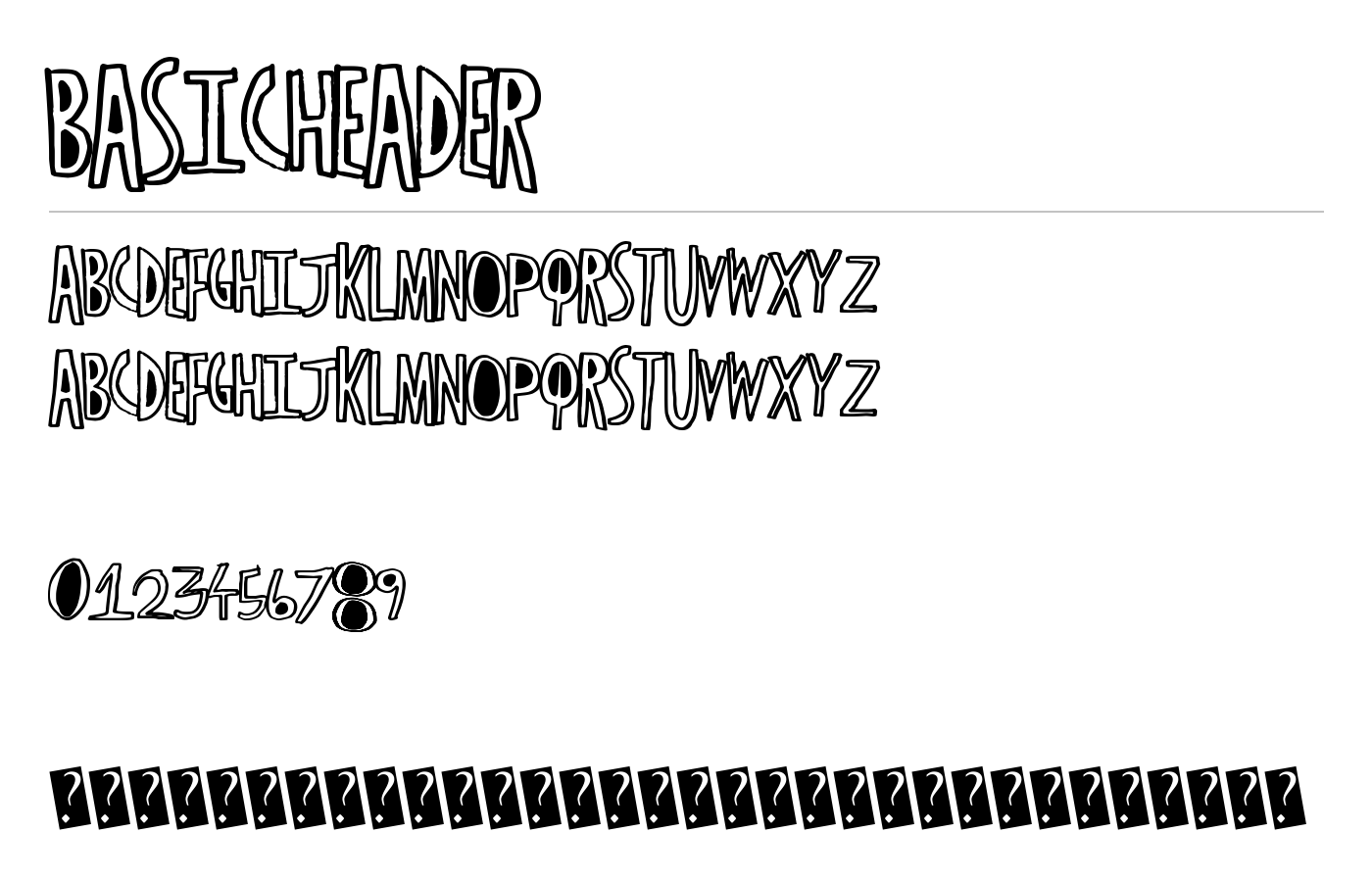
BasicHeader Font is a playful, hand-drawn sans serif typeface with tall, narrow letterforms and irregular stroke widths that create a casual, energetic feel. Its quirky, slightly uneven shapes make it perfect for fun, informal designs like posters, children's books, and creative branding that want to stand out with personality. This font works best in headlines and display text where its unique style can grab attention and set a lively tone.
BasicHeader Font